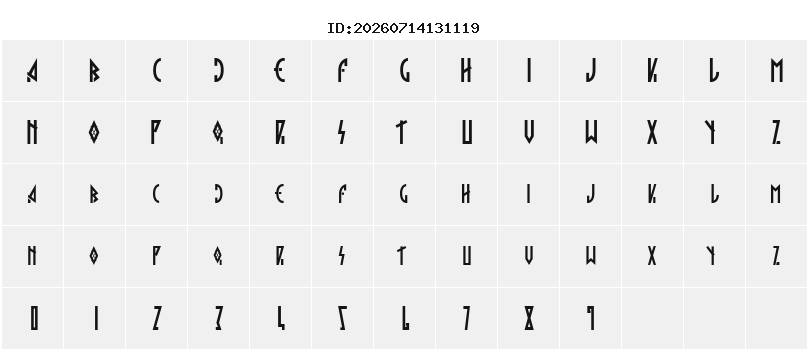
• Font Name: Hargita
• Designer: Roland Huse
Hargita.ttf is a modern, elegant sans-serif font designed for ultimate readability and visual harmony. Perfect for branding, headlines, web design, and print materials.